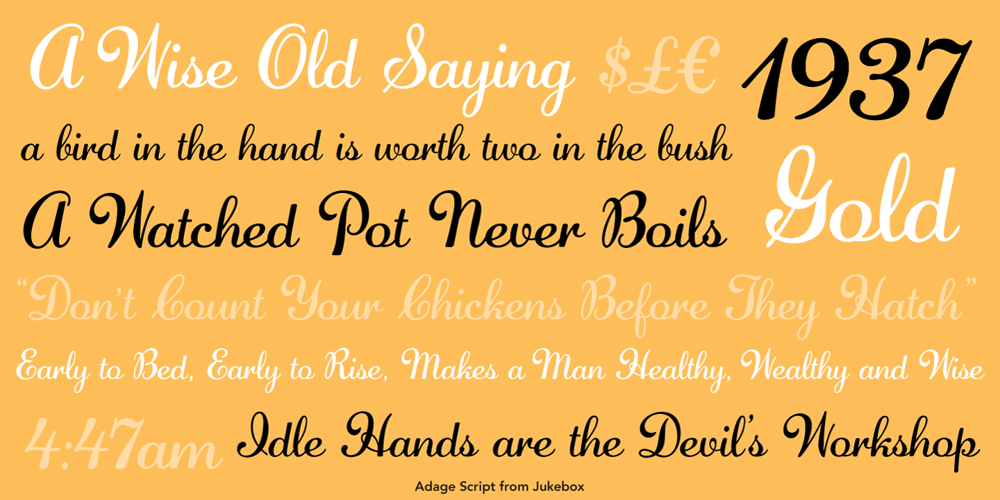
Adage Script JF Font Family was designed by Jason Anthony Walcott and published by Jukebox Collection. Adage Script JF contains 1 styles and family package options. A warm script font with a down-home feel. Digitally revived from a vintage photo-typesetting face. The character set has been expanded and modernized.